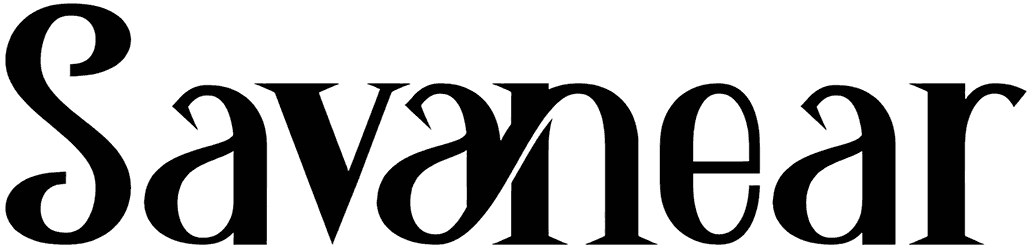
Savanear Font
Savanear’s neutral, elegant, and precious nature complements rather than competes with other fonts and can give it everything a design lacks. This serif font can be the center of attention in any configuration and put other competitors in the back seat.
So, if you want to design a poster, book, album, website, or an attention-grabbing title, and at the same time, its content can be read carefully, implement this basic font in your design and see its dramatic changes.